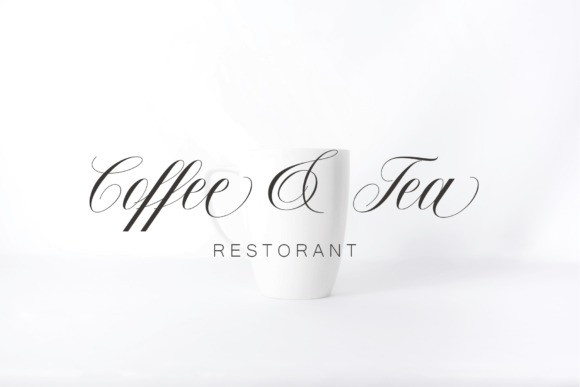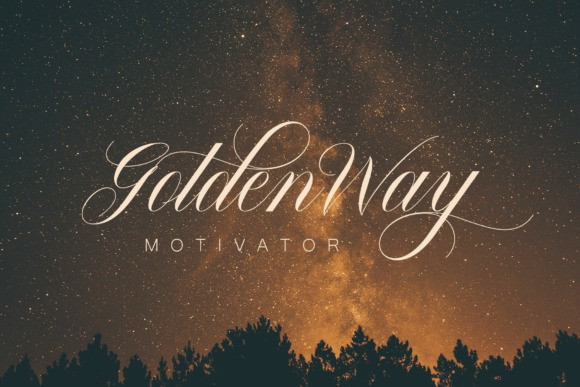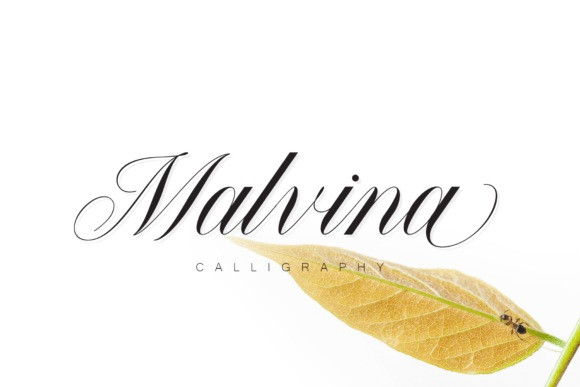
Malvina Font
Malvina Font is a sweet and delicate handwritten font. Dainty and joyful, this font will be ideal for writing wedding invitations, cards or any other design that may need a romantic, personalized touch!